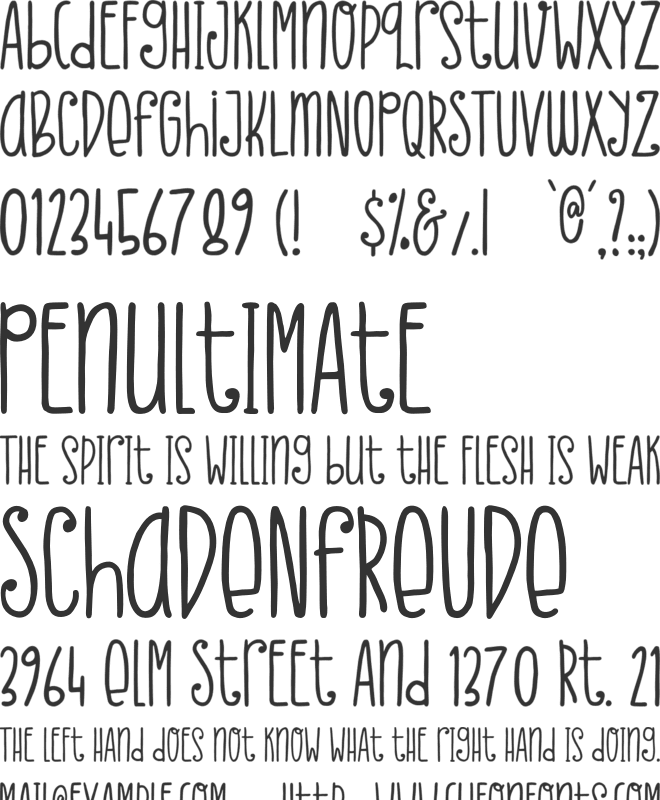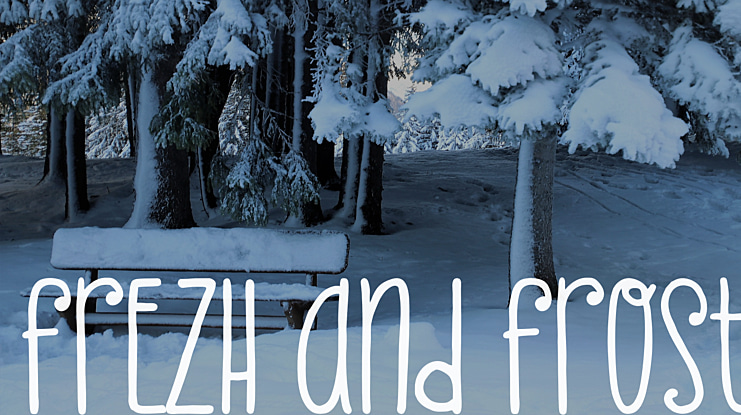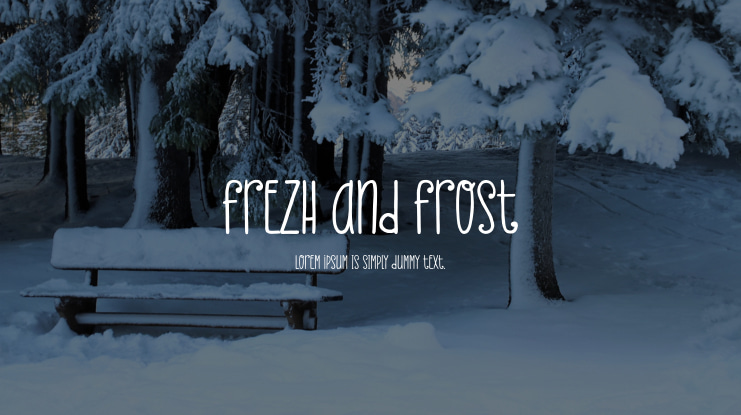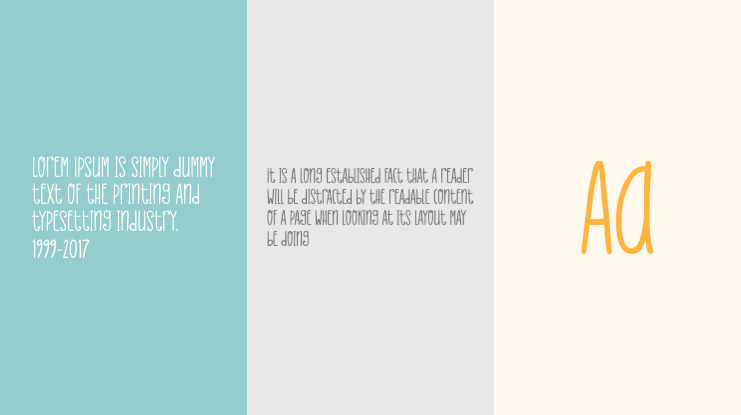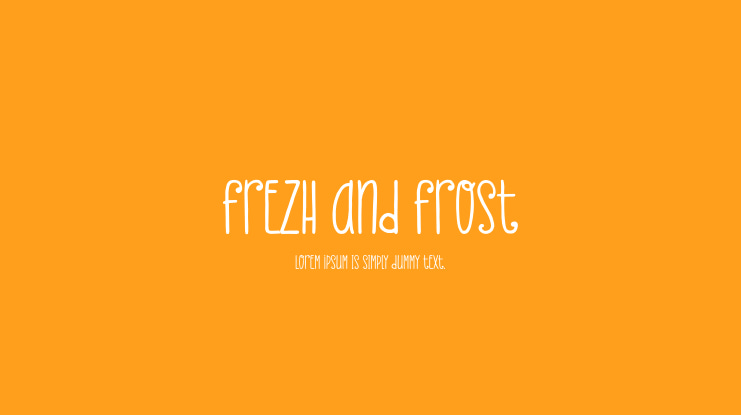
Frezh And Frost Font
Etjan Dsg
Frezh & Frost is a natural and thin lettered display font. Simple but with a strong visual effect, this font will instantly make your creation more appealing than any others